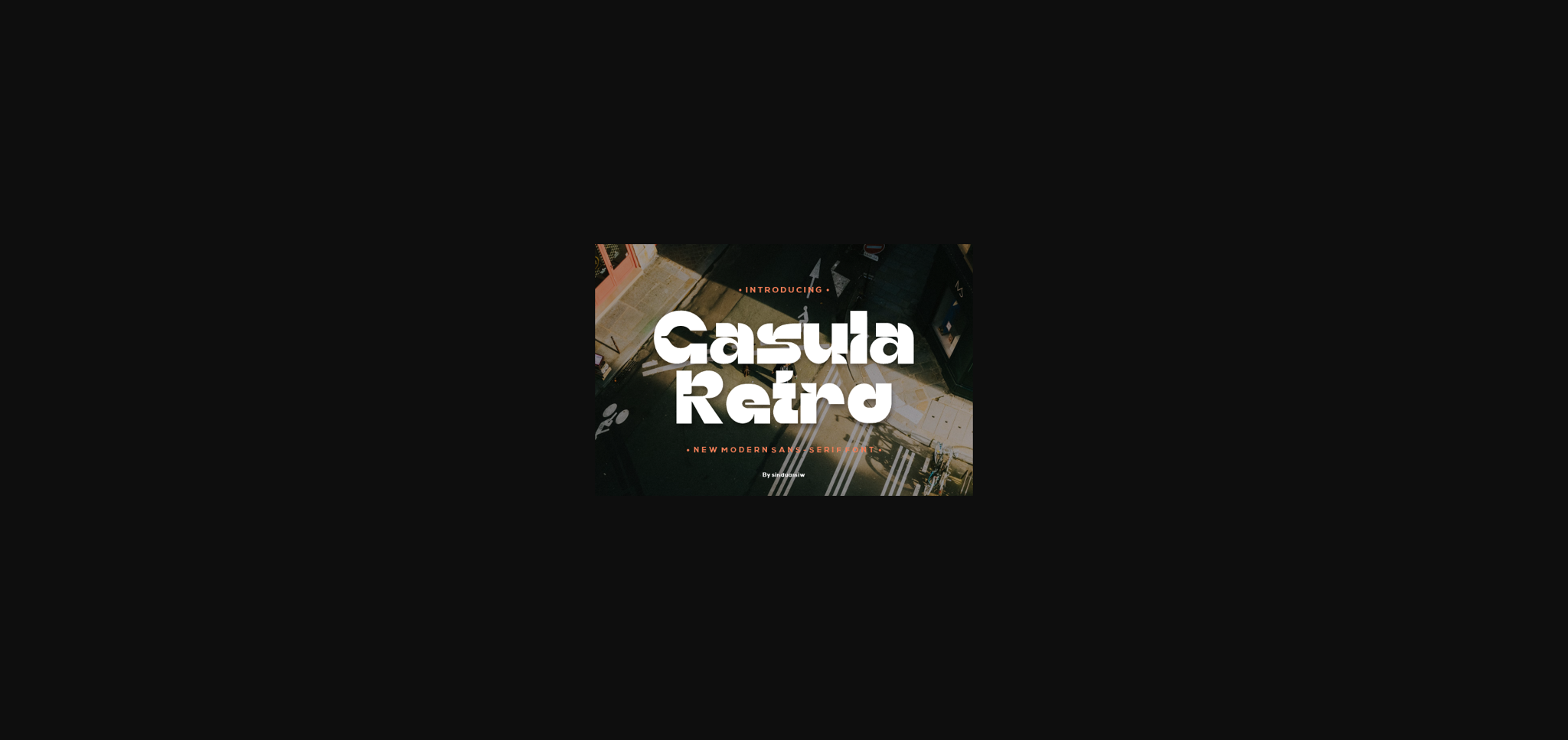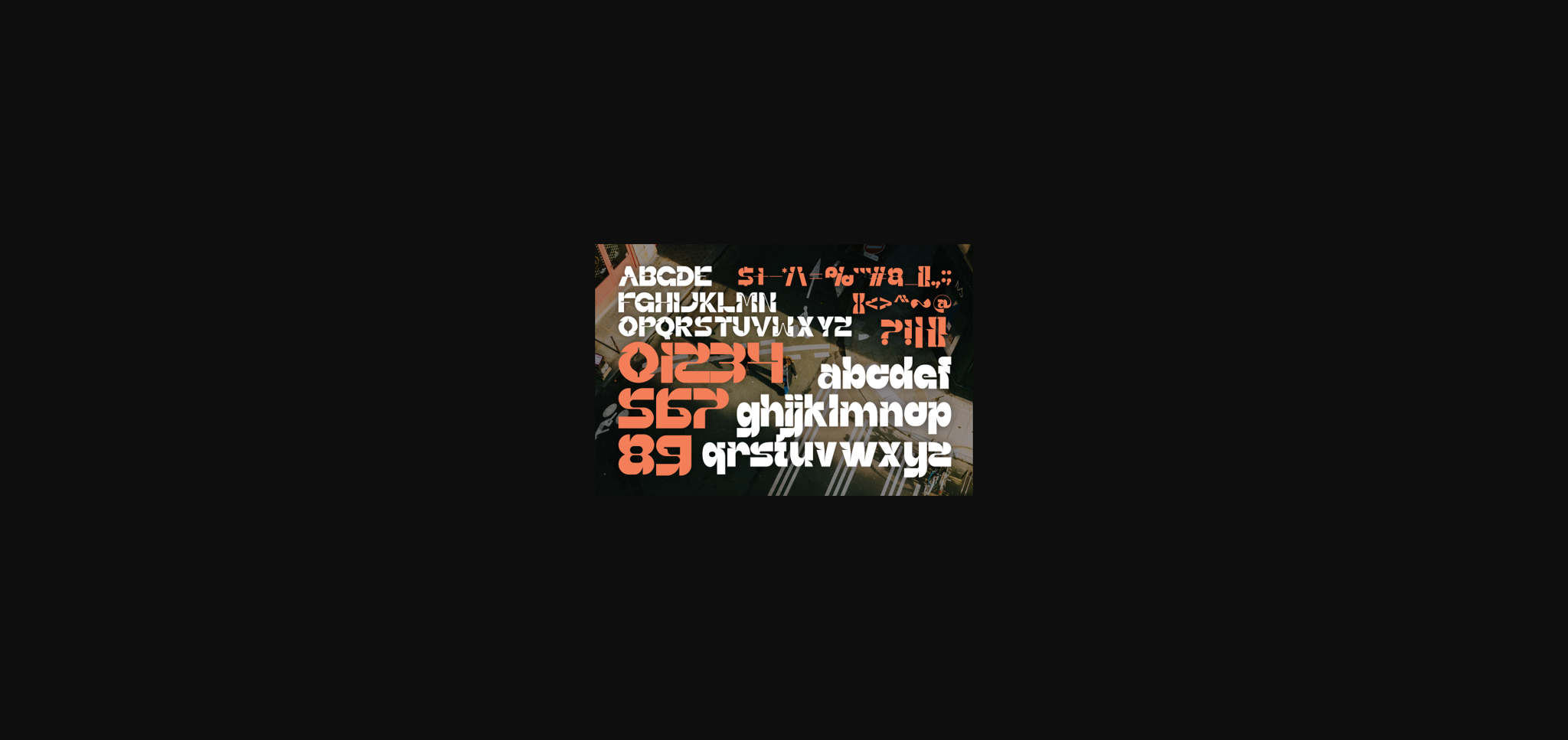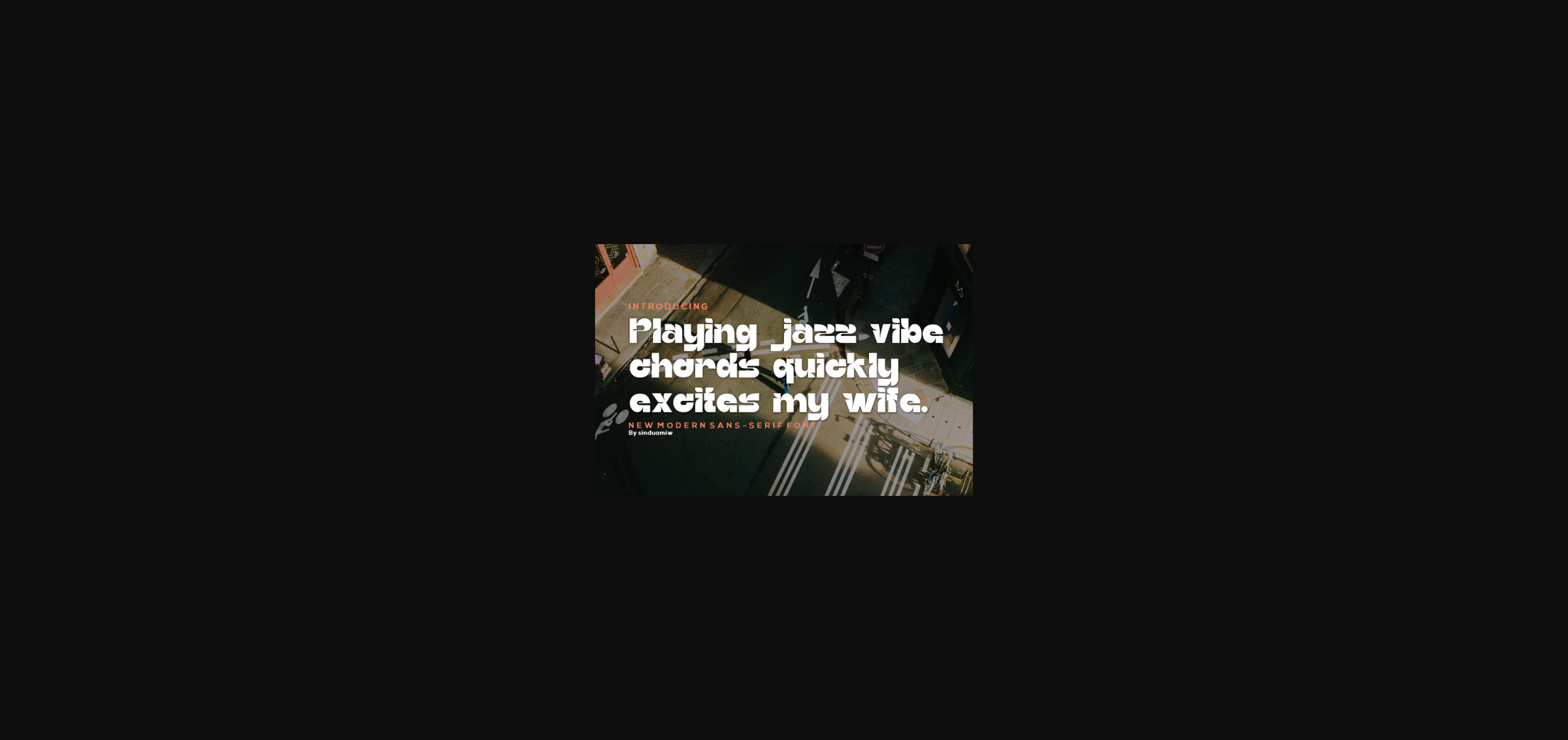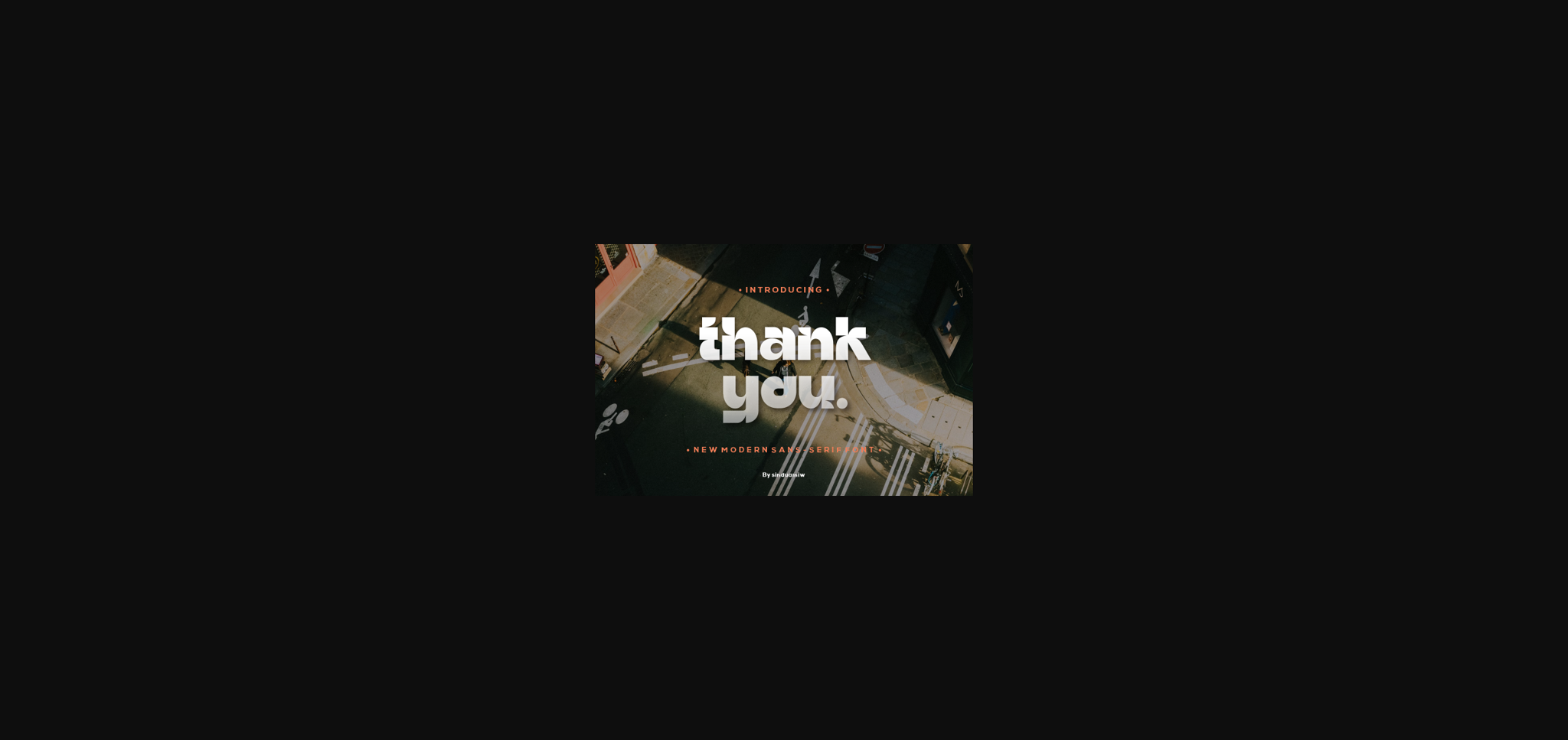
Casula Retro Font
About Casula Retro Font
Casula Retro is a typeface without serifs (without endings) that has a classic or retro style or aesthetic. These fonts often incorporate design elements inspired by a particular era, such as the 1950s or 1960s, but can also include styles from other periods in typographic history. A harmonious mix: Typically, retro sans serif fonts have a harmonious mix. harmony between the horizontal and vertical parts of the letters, producing a balanced and easy-to-read impression.